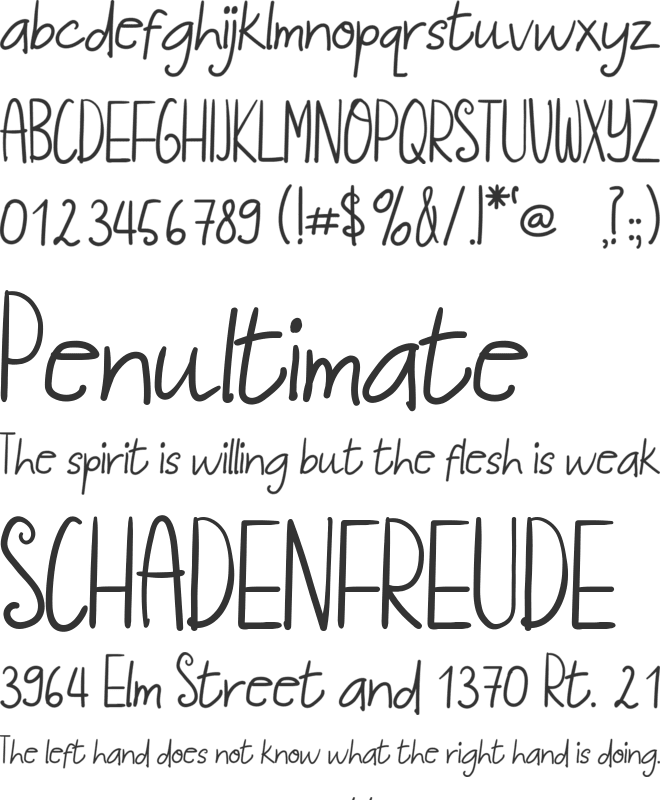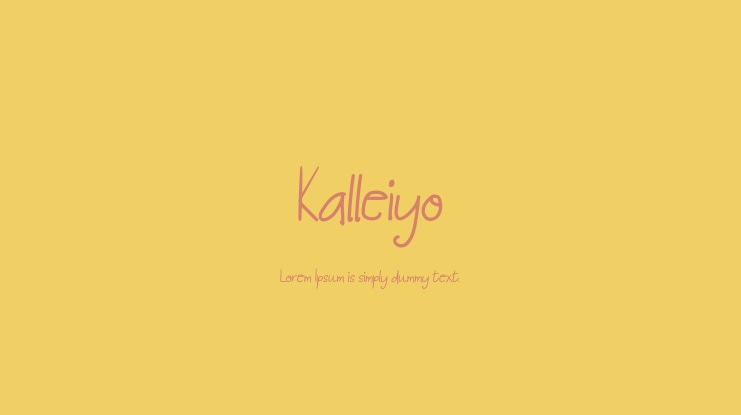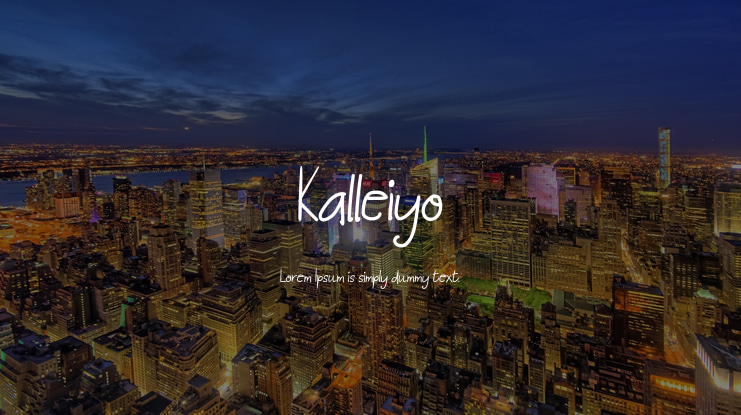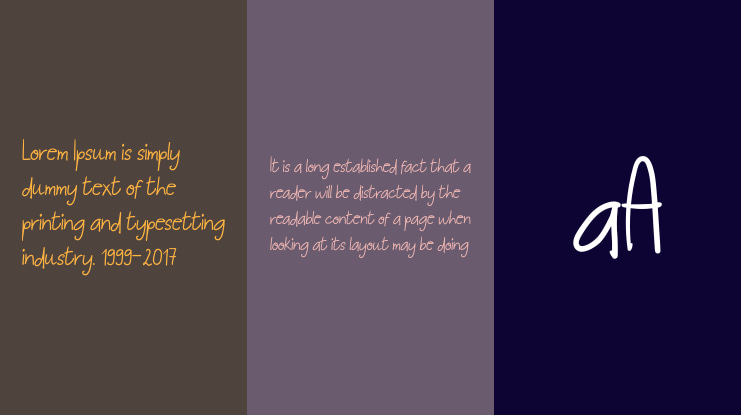
Kalleiyo Font
Kalleiyo Font is a cute handrawn display font with movement and grace.
This Font suits for various vector designs, printing such as digital wedding invitations, blogs, online shops, social media, while printing can be used in the field of product clothing, accessories, bags, pins, logos, business cards, watermarks and many others.